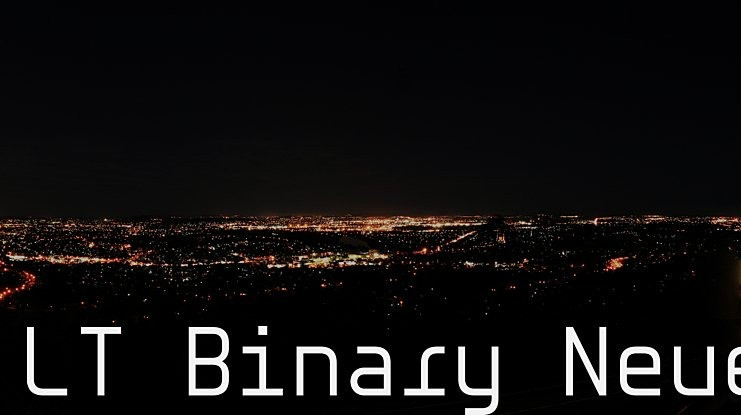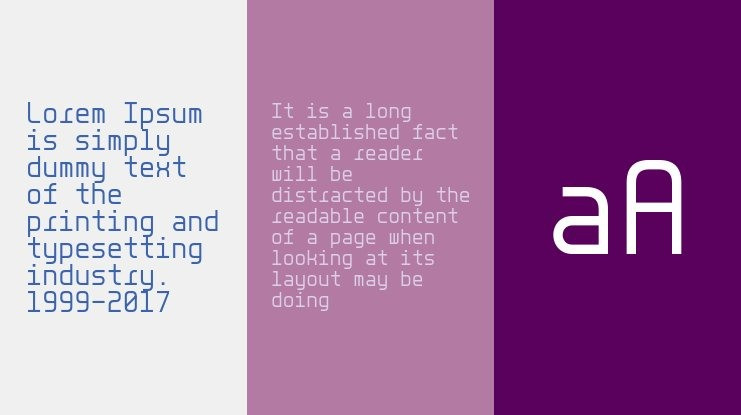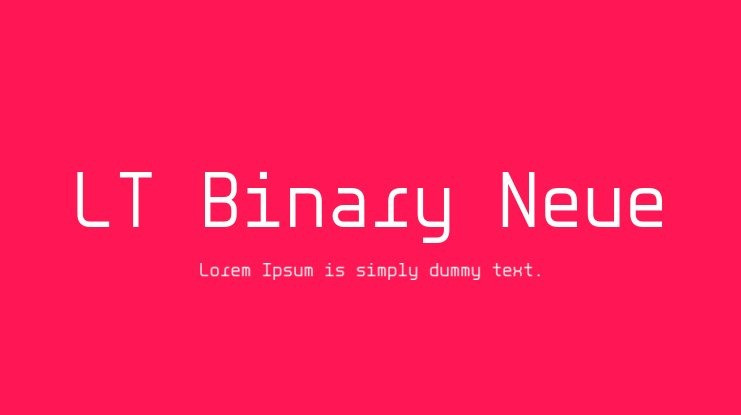
LT Binary Neue Sans Serif Font, Perfectly fit for branding, logo, wedding things, greeting cards, fashion, lookbook, marketing promotion, anytime you want to look fancy elegant but still casual.
LT Binary Neue Font